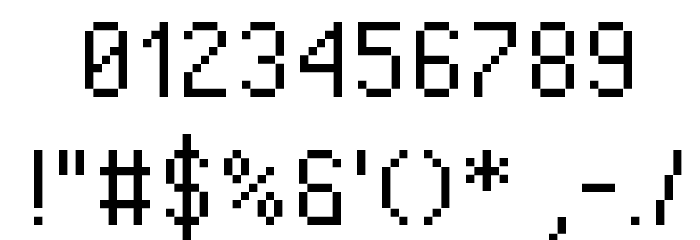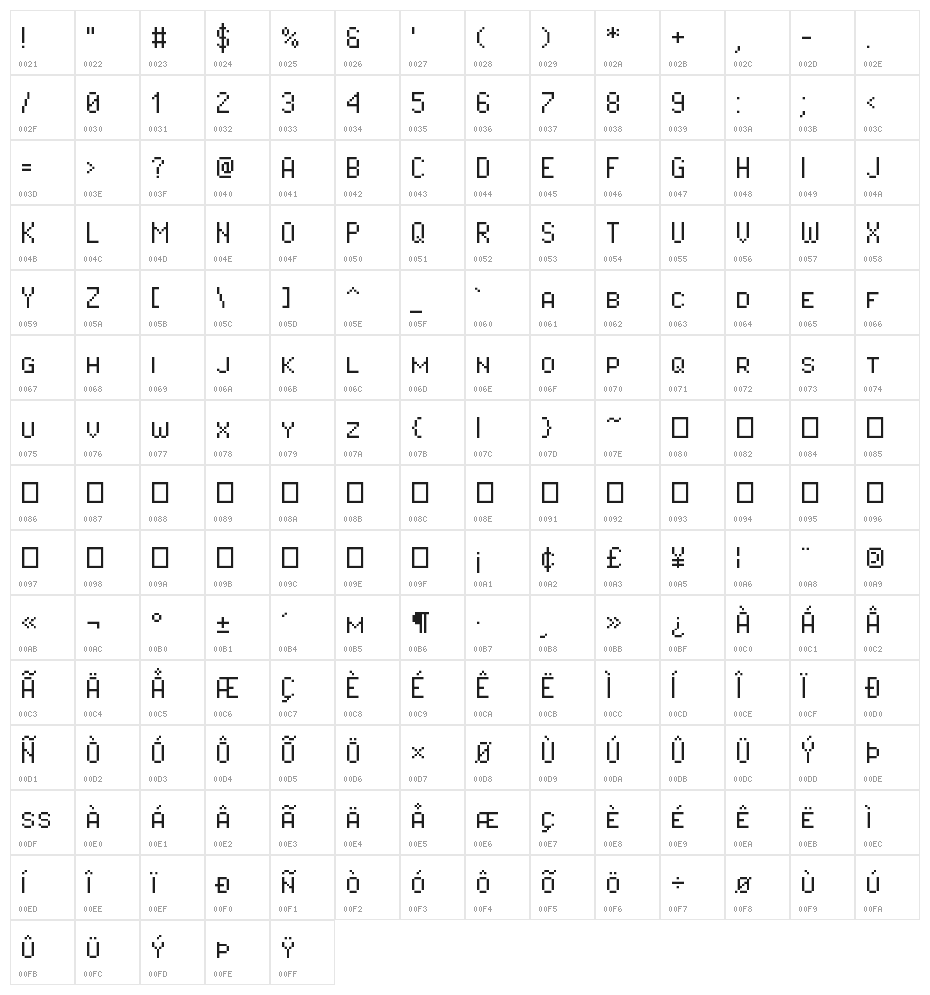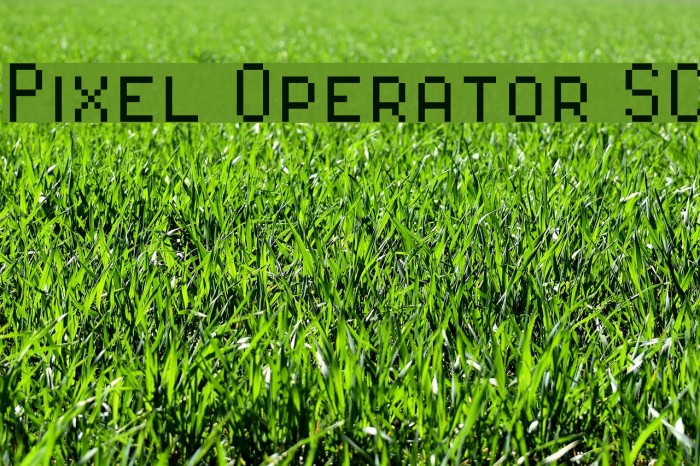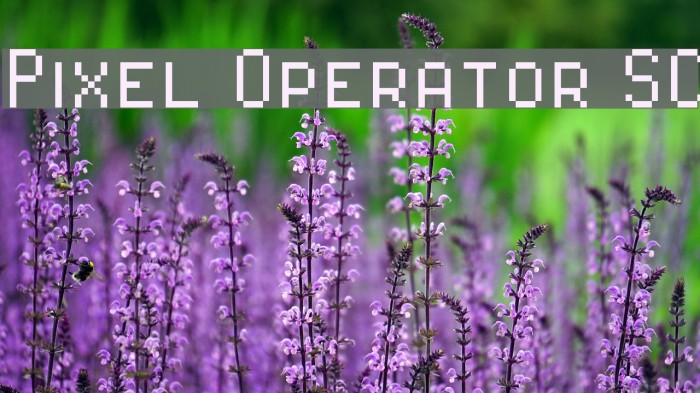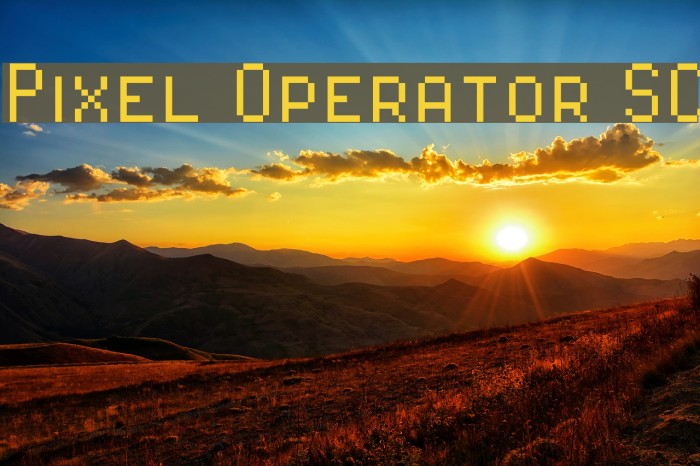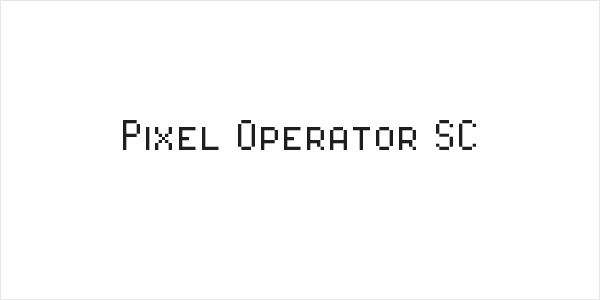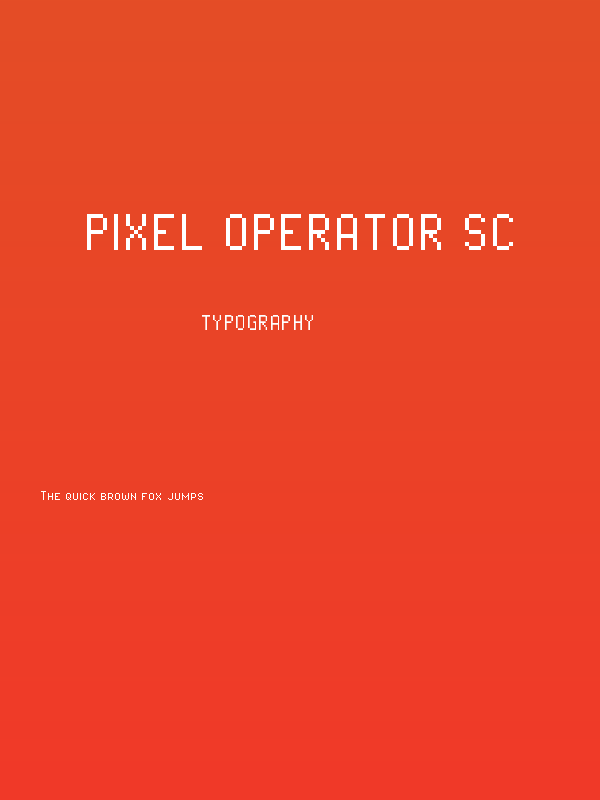
Pixel Operator SC Font
Pixel Operator SC Description
This font is a pixel-style typeface characterized by its blocky, grid-like appearance, reminiscent of early computer and video game graphics. Each character is constructed using a uniform grid of pixels, giving it a distinctly retro and digital aesthetic. The uppercase and lowercase letters, as well as numbers and special characters, maintain a consistent pixelated structure, ensuring readability while preserving the nostalgic feel. The font's simplicity and uniformity make it ideal for projects that aim to evoke a sense of nostalgia or a digital, tech-oriented theme. Its design is straightforward, with no curves or embellishments, emphasizing clarity and functionality.
Overall StyleRetro, Digital
Use CaseHeadlines, Logos, Digital Art
Proposed ProjectsIdeal for retro video games, digital art projects, tech-themed designs, and any creative work that seeks to capture a vintage digital aesthetic.